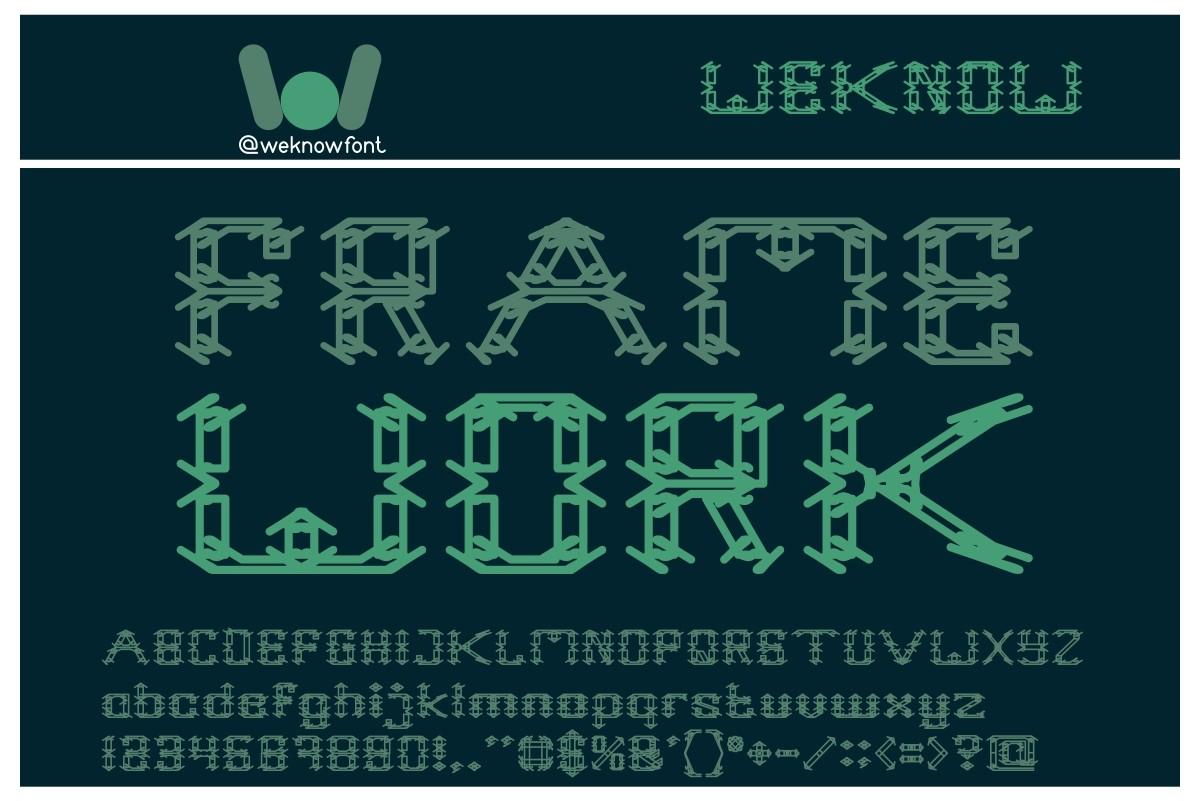
Frame Work Font Description
Frame Work is a fancy various themes font, suitable for logo, logotype, headline font, in corporate identity, brand identity, apparel industry, poster, music, movie, game, magazine, book, comic, cartoon, social media, website, or any of your creative design project.